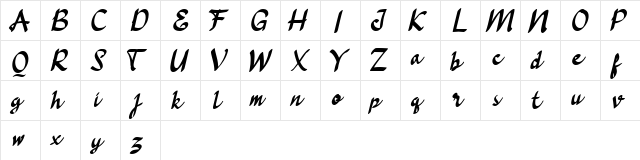
Lockanantta - Demo Regular
| Designer | Galih Sulistya Aji |
Lockanantta - Demo is a composed and adaptable typeface that performs quietly and consistently across a wide range of design contexts.